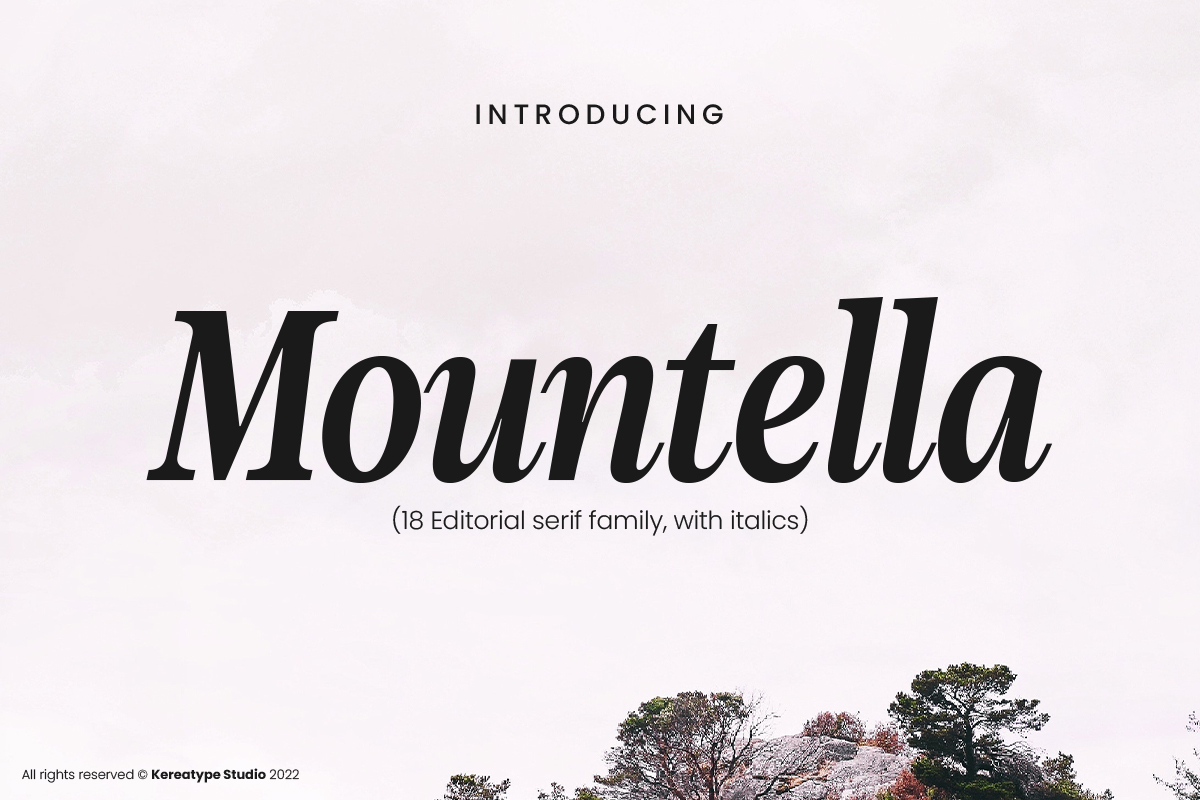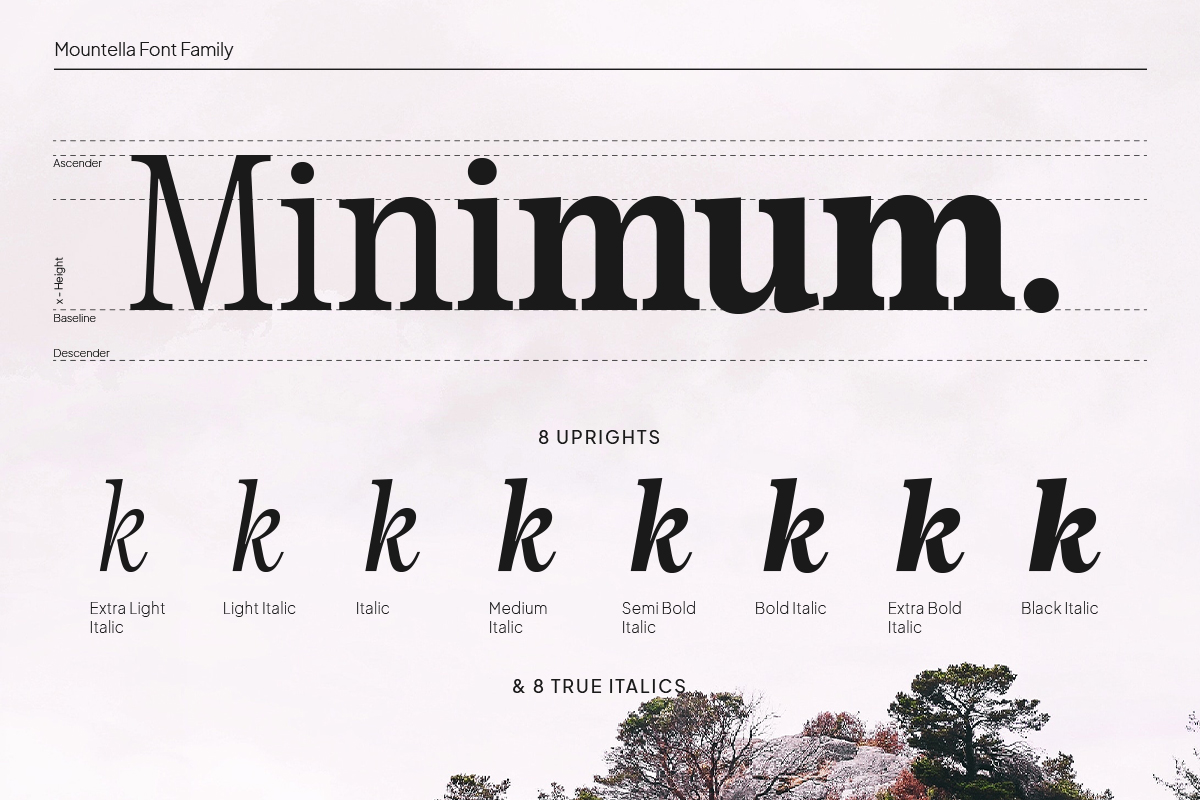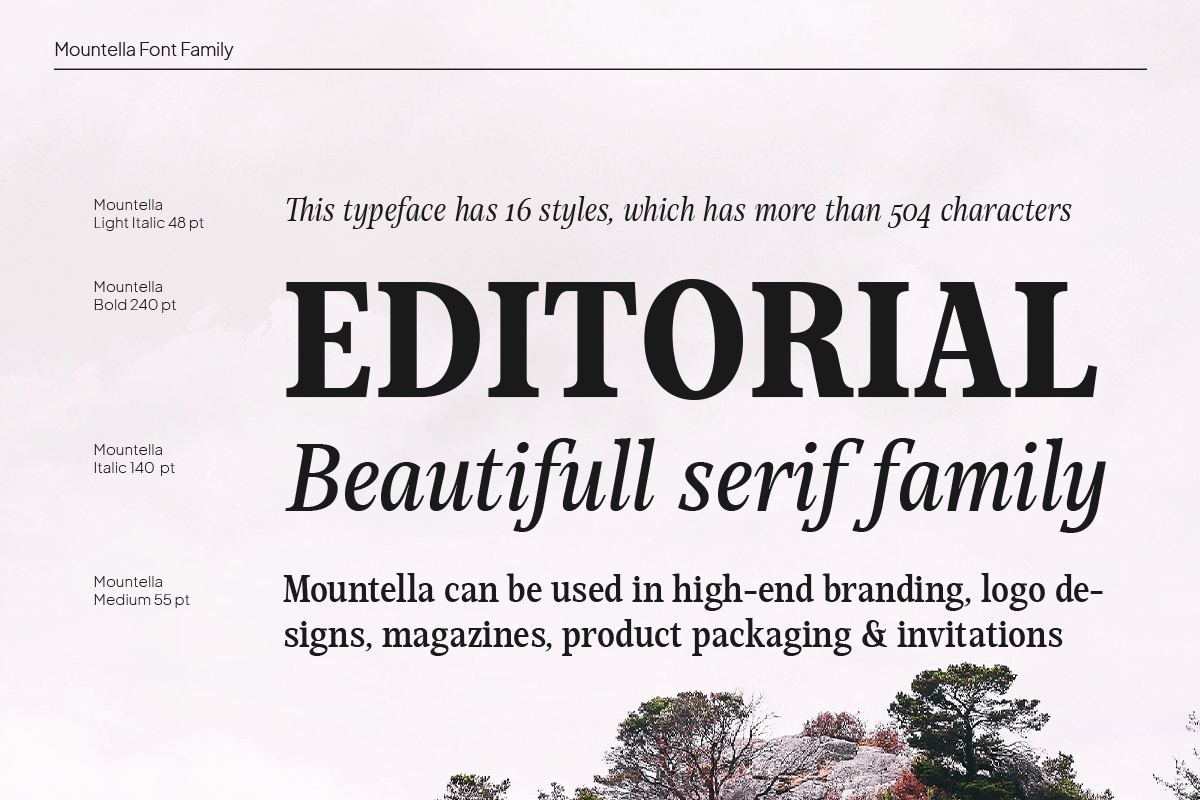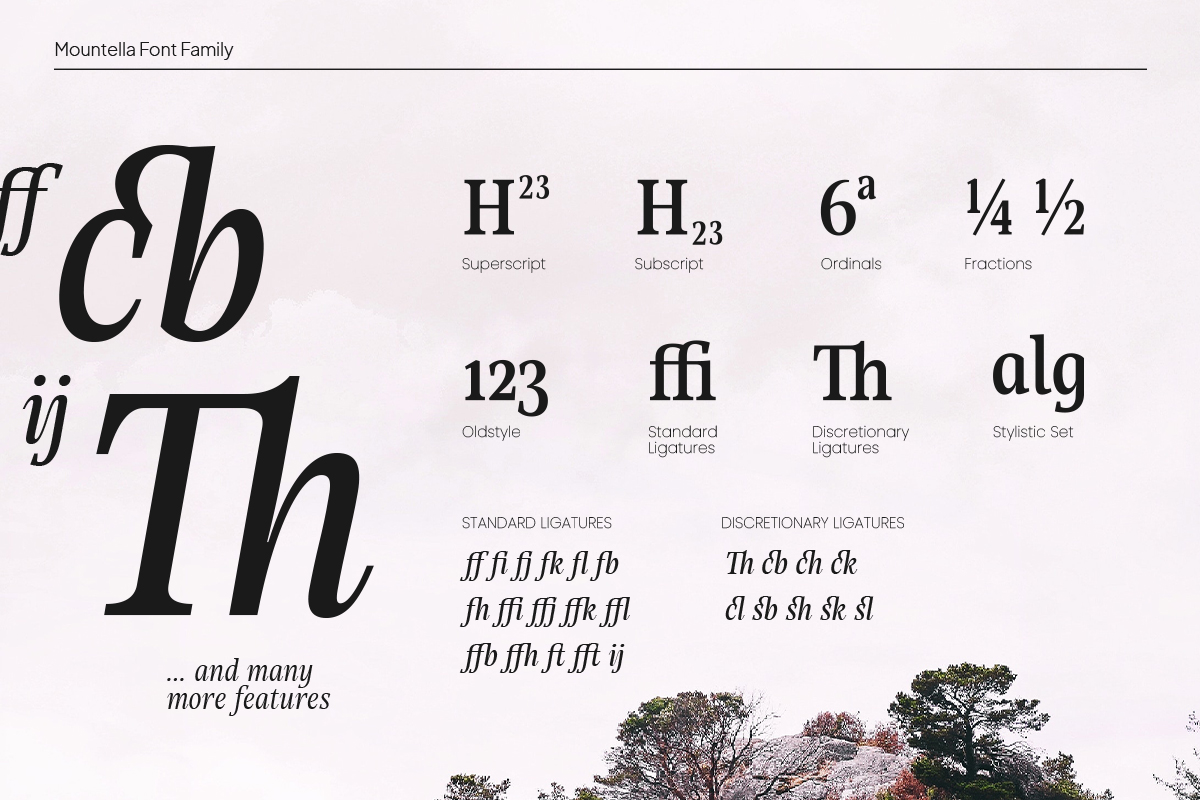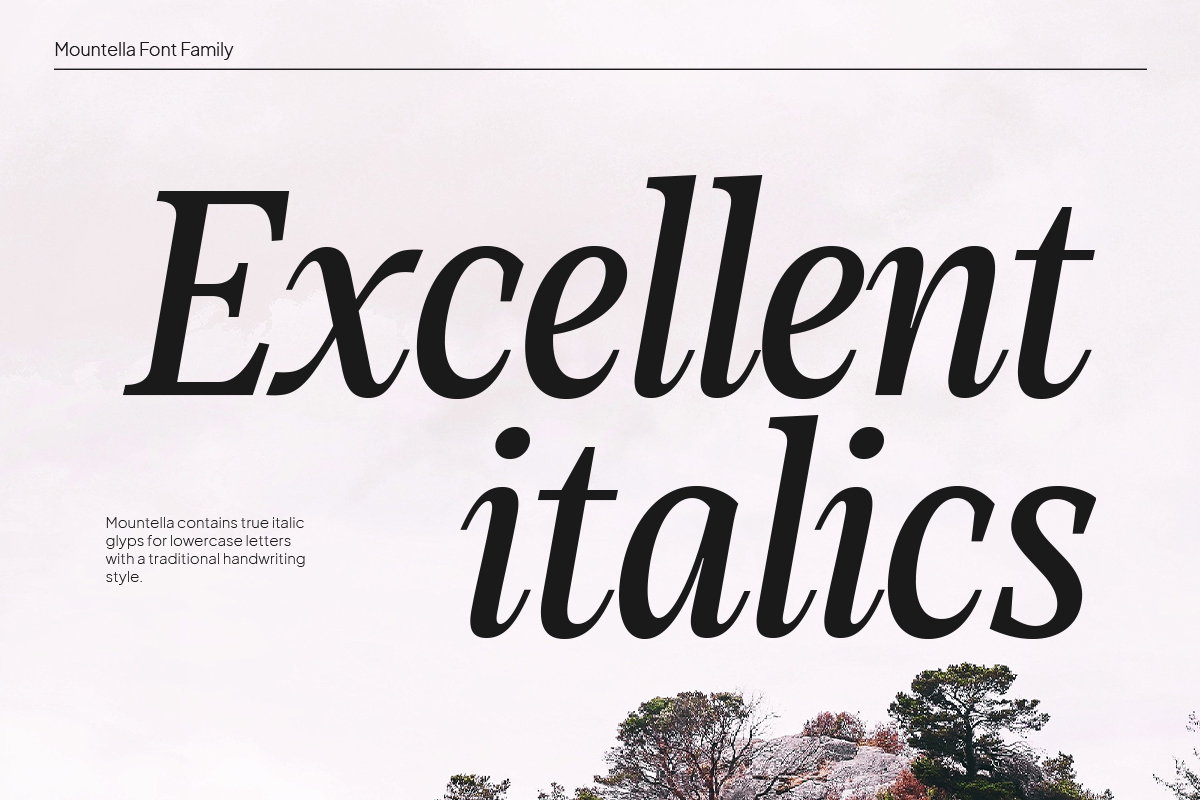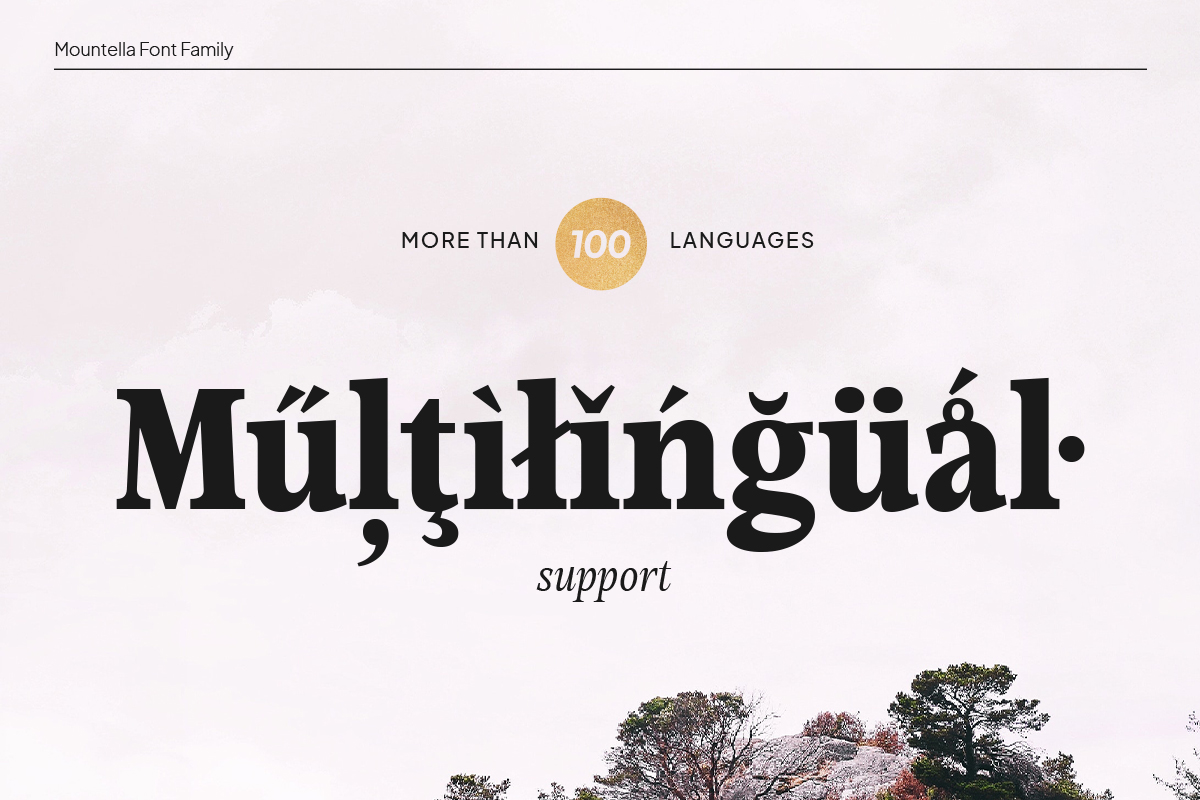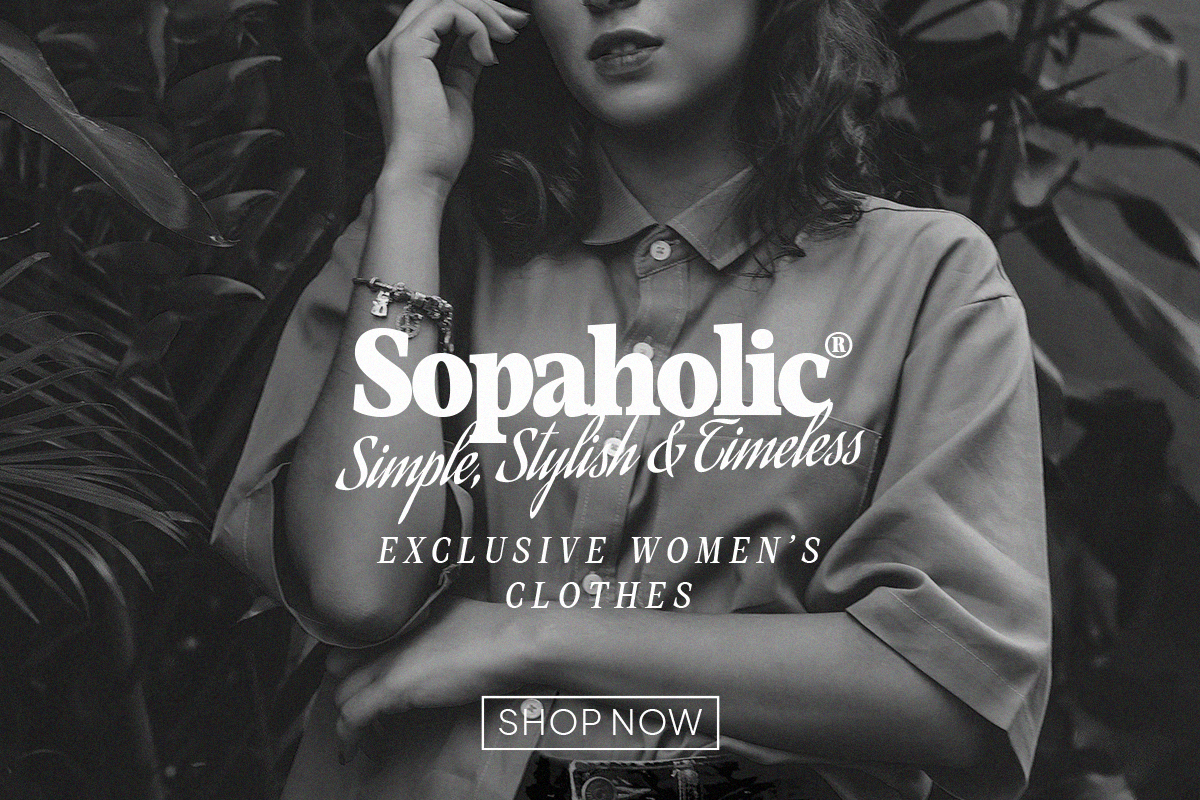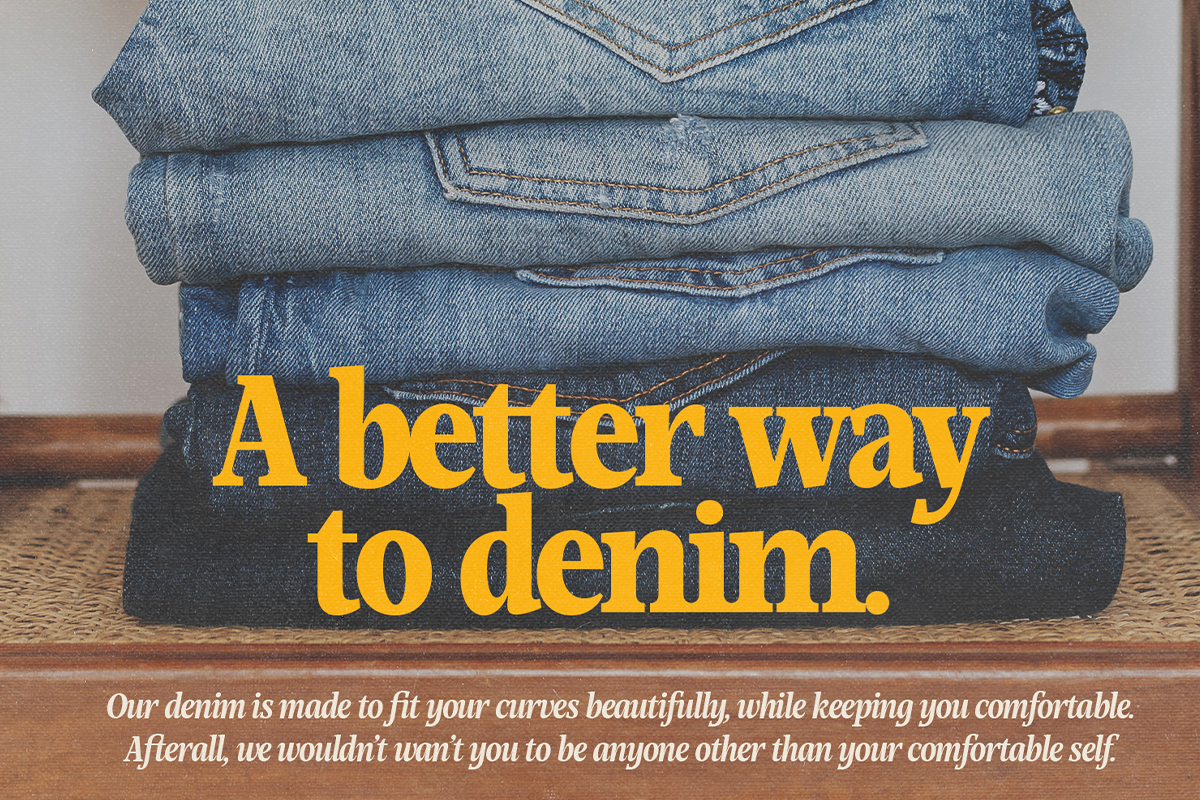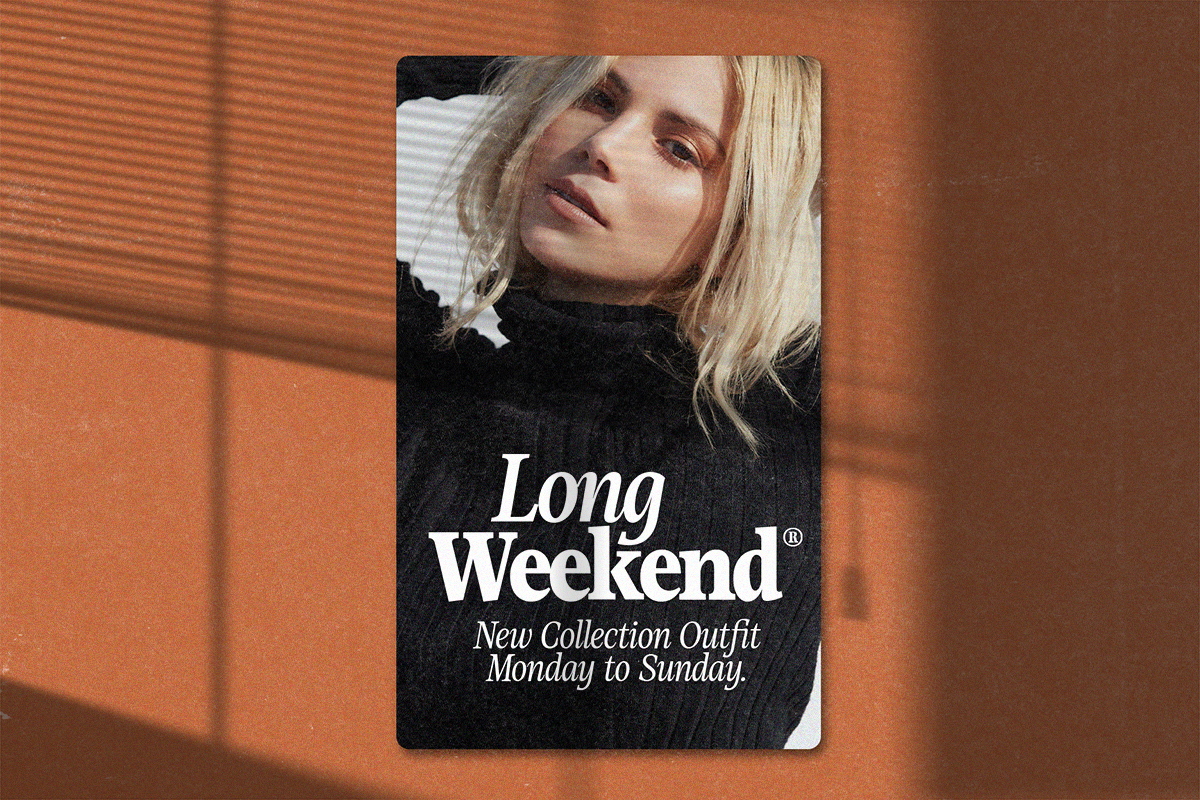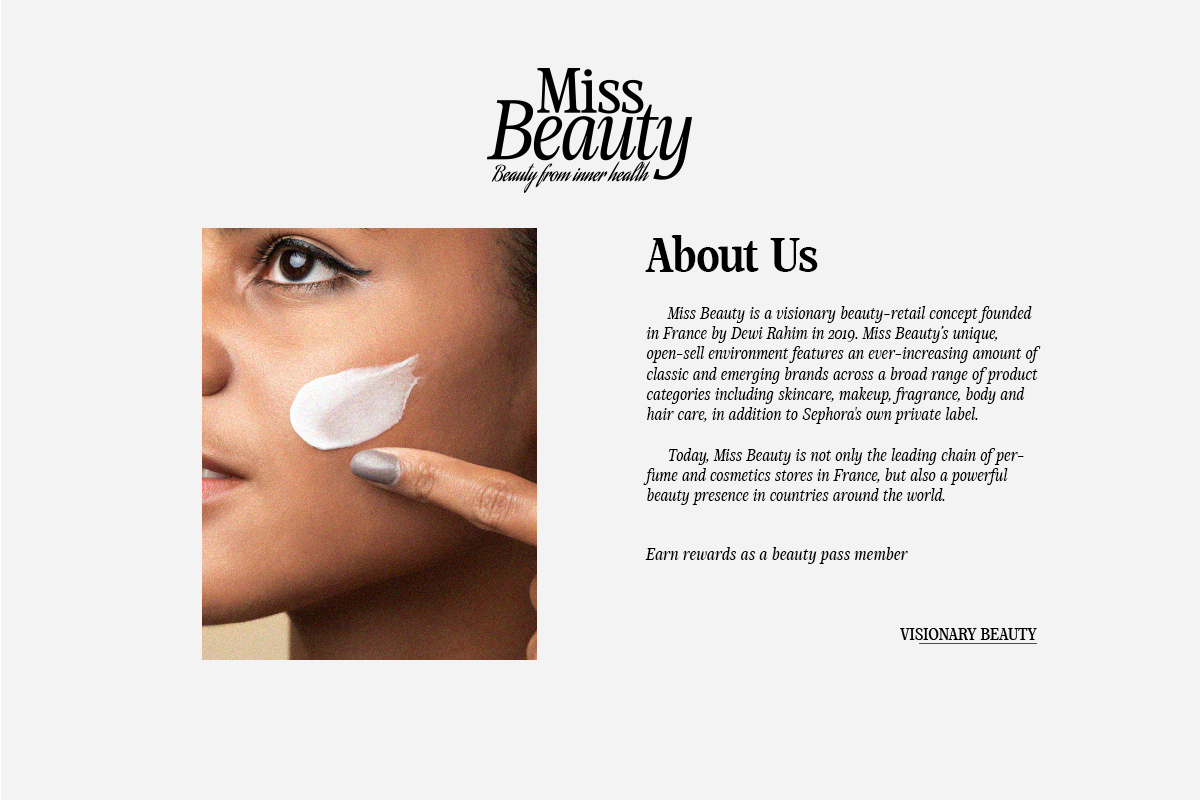
Mountella
Elegant Nostalgic Editorial And Calligraphic Aesthetic
Mountella is an extensive editorial font family that masterfully combines a comprehensive serif system with an elegant calligraphic script. Featuring 18 weights from Extra Light to Black—including variable options and over 500 characters—this collection blends nostalgic vibes with modern luxury. Designed for both high-impact display use and clean body text, Mountella is the ultimate choice for high-end branding, magazines, and romantic wedding invitations. With its graceful flowing strokes and refined serif forms, this versatile family ensures your designs exude an air of exclusivity, passion, and timeless class